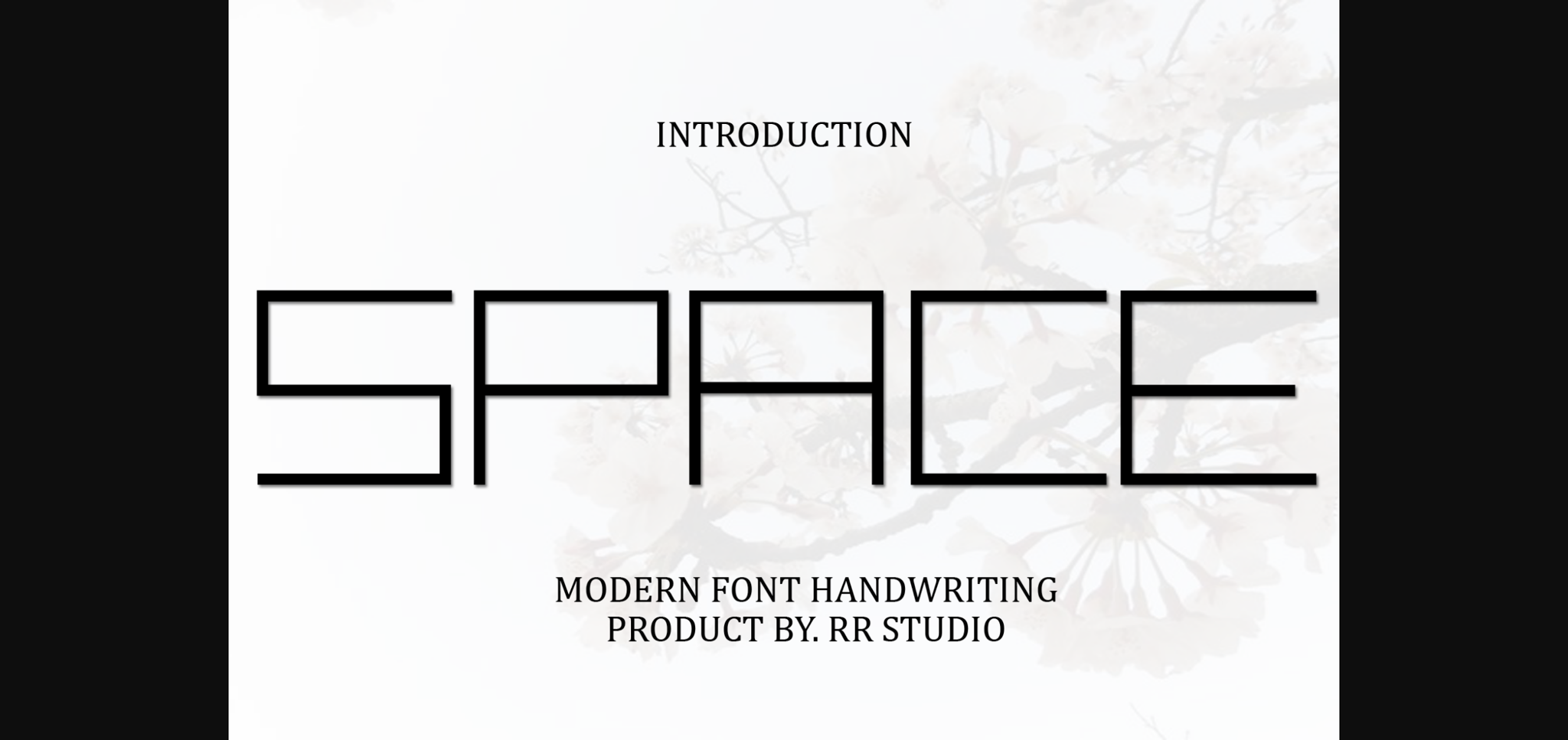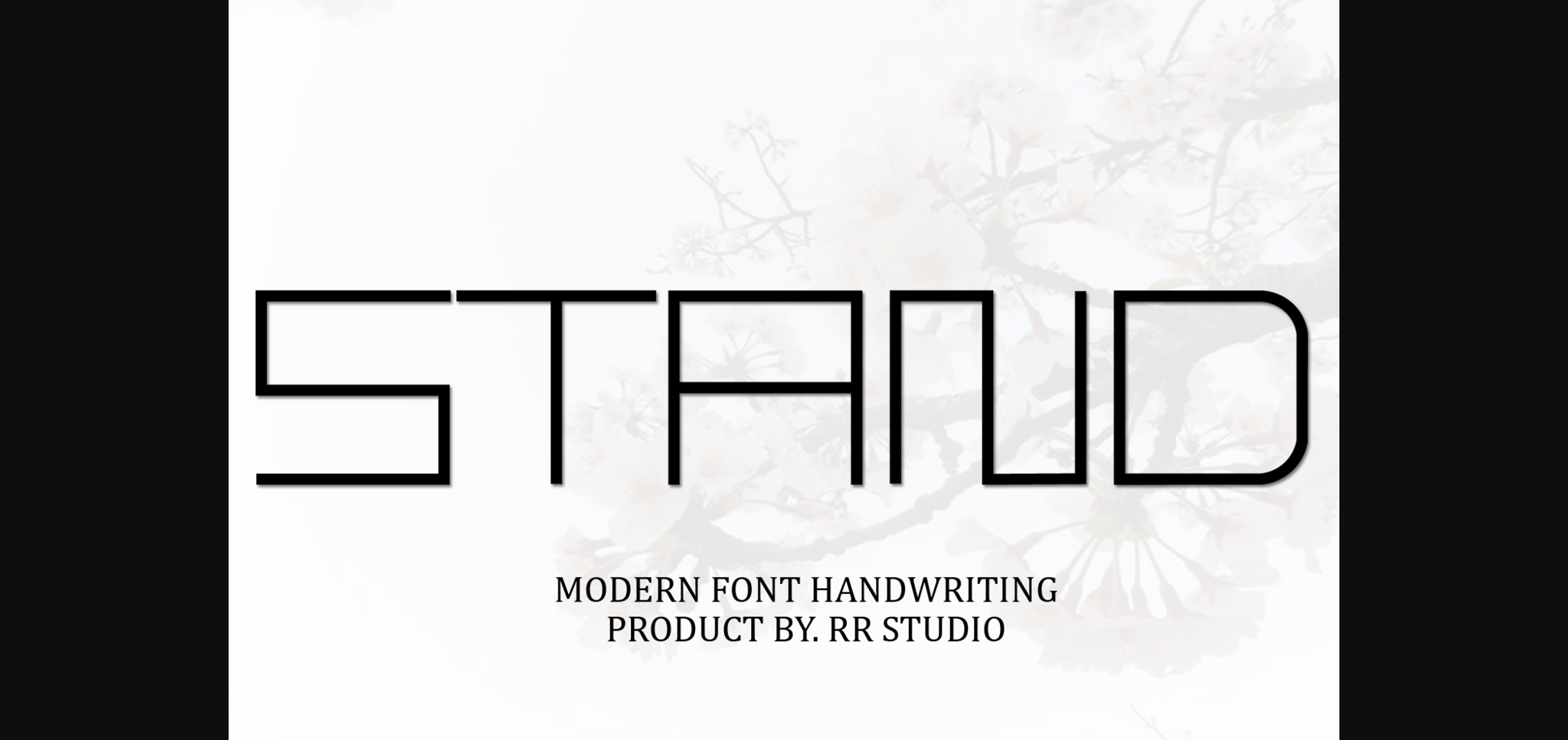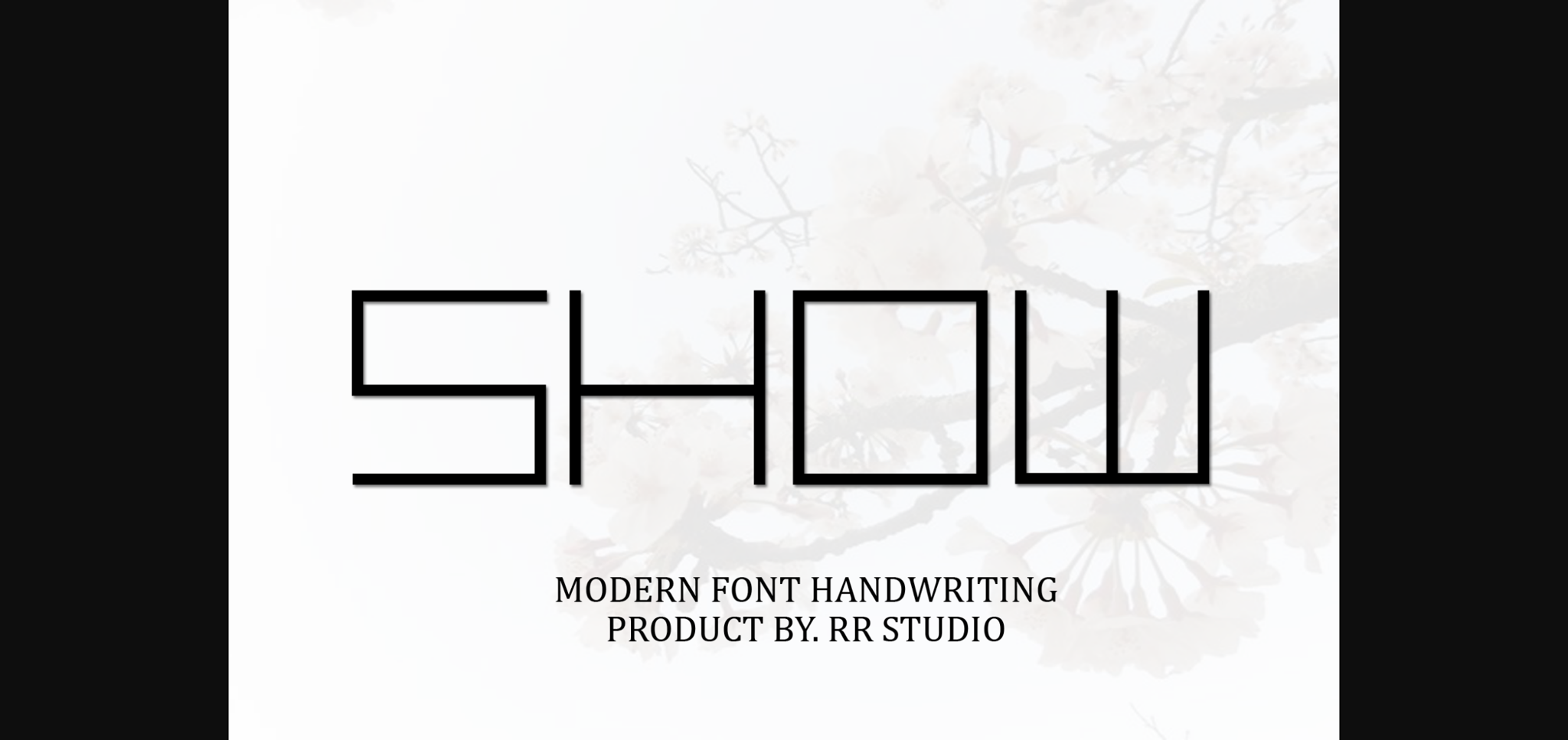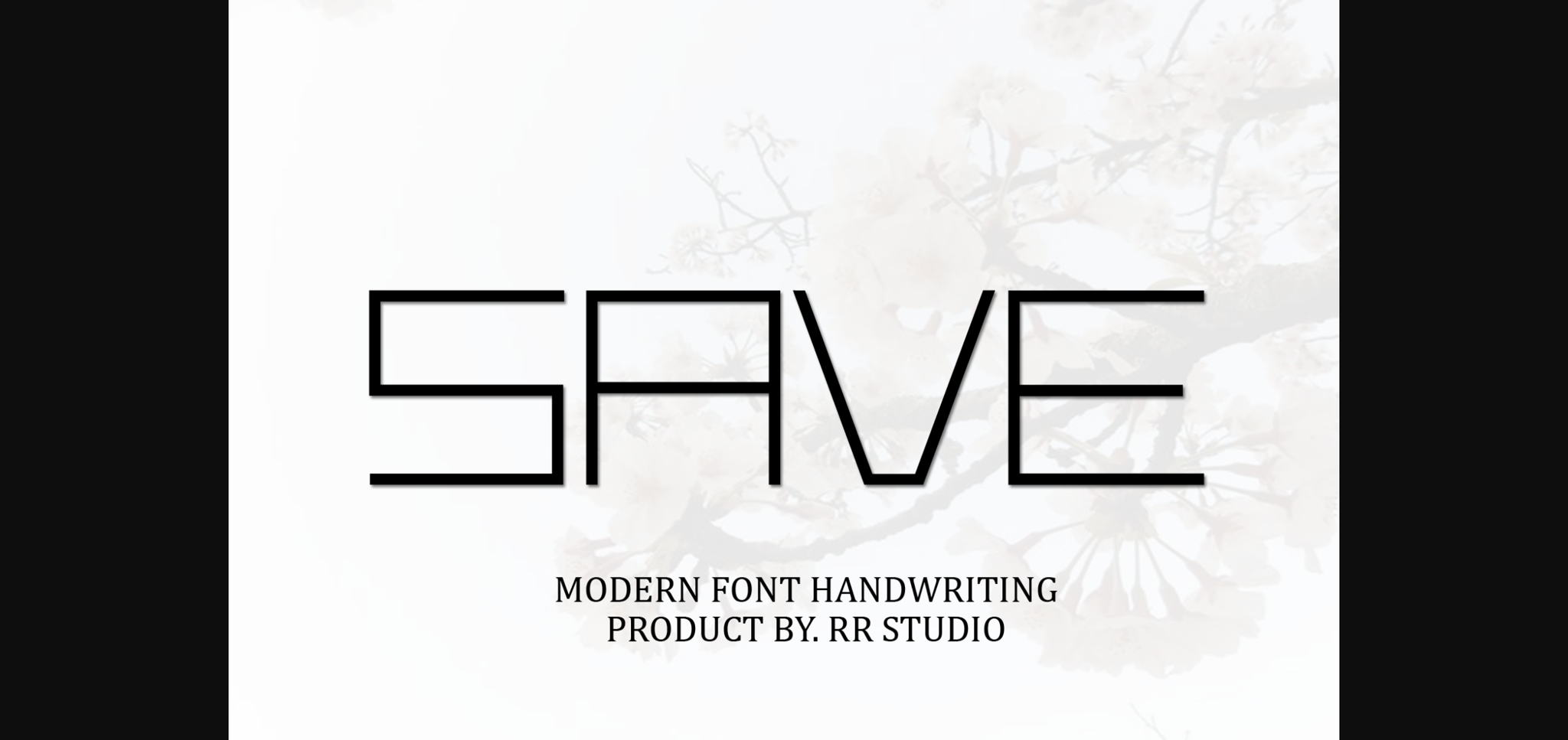
About Space Font
Space is a cool, wide sans-serif font that embodies simplicity and clarity. Its clean lines and balanced proportions make it perfect for various design applications, from body text in publications to headers on websites. Space maintains readability while offering a modern and uncluttered aesthetic for your projects.